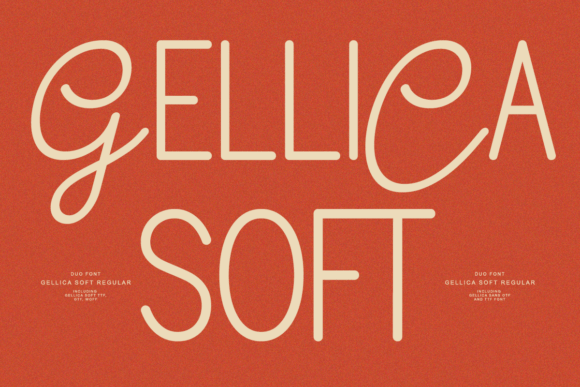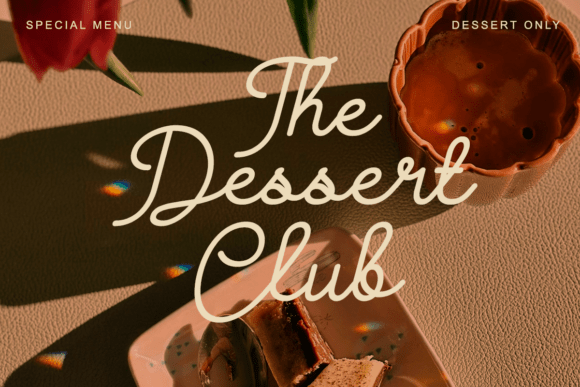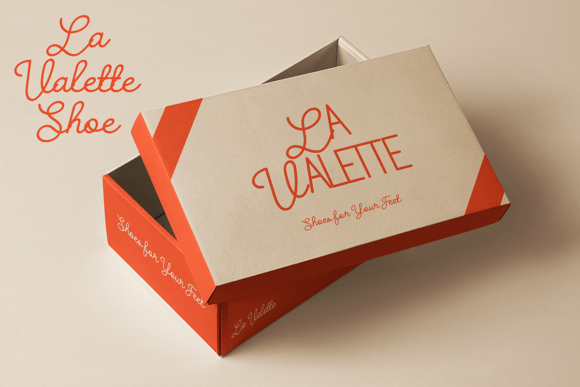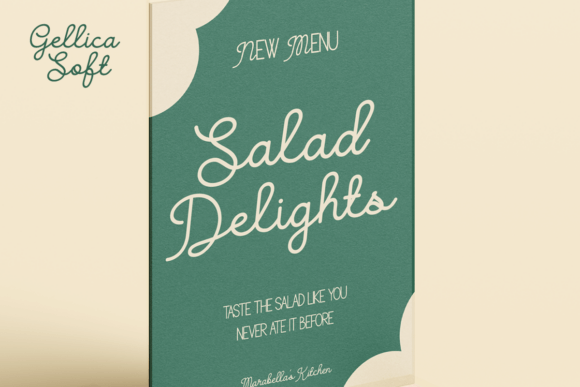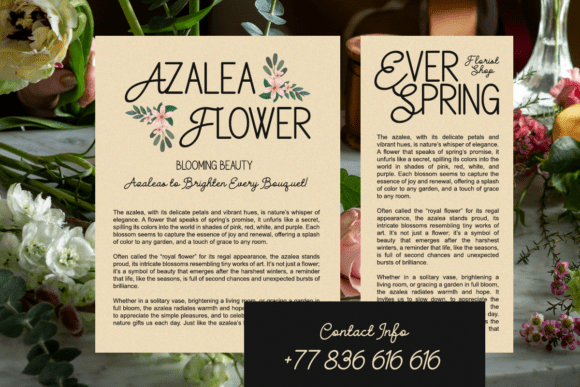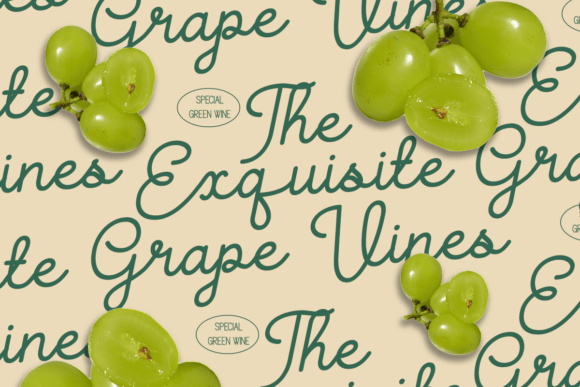
Introducing Gellica Soft Font: A Beautiful Handwritten Font Duo
Are you a designer or crafter looking for a unique and versatile font to elevate your creative projects? Look no further than Gellica Soft Font, a stunning handwritten font duo that’s perfect for a wide range of applications. In this article, we’ll dive into the features and benefits of Gellica Soft, and explore how it can help take your designs to the next level.
The Concept Behind Gellica Soft
Gellica Soft is a carefully crafted font duo that combines two distinct styles to create a unique and captivating visual identity. The italic version of Gellica Soft is a monoline handwritten font, characterized by its smooth, flowing lines and elegant curves. On the other hand, the regular version is a sans serif monoline model combined with a script character, giving it a modern and sophisticated feel.
The goal behind Gellica Soft was to take inspiration from the simple yet effective designs of the past and bring them into the modern era. The result is a font duo that’s both nostalgic and fresh, making it perfect for a wide range of creative projects.
Key Features of Gellica Soft Font
So, what makes Gellica Soft Font so special? Here are just a few of its key features:
- Handwritten font duo: Gellica Soft consists of two complementary fonts that can be used together or separately, depending on your design needs.
- Monoline handwritten font: The italic version of Gellica Soft features smooth, flowing lines that give it a beautiful, handwritten feel.
- Sans serif monoline model combined with script character: The regular version of Gellica Soft has a modern, sophisticated look that’s perfect for a wide range of applications.
- Simple yet effective design: Gellica Soft takes inspiration from the past, with a focus on clean lines, elegant curves, and a timeless aesthetic.
Use Cases for Gellica Soft Font
Gellica Soft Font is incredibly versatile, making it perfect for a wide range of creative projects. Here are just a few ideas to get you started:
- Product logo: Create a beautiful, eye-catching logo for your product or brand with Gellica Soft.
- Wedding card logo: Add a touch of elegance and sophistication to your wedding stationery with Gellica Soft.
- Clothing brand logo: Create a stylish, modern logo for your clothing brand that stands out from the crowd.
- Vintage design: Use Gellica Soft to create stunning vintage-inspired designs that evoke a sense of nostalgia and timelessness.
- And much more!: Gellica Soft is perfect for any creative project that requires a unique, handwritten font with a touch of elegance and sophistication.
Why Choose Gellica Soft Font?
So, why should you choose Gellica Soft Font for your next creative project? Here are just a few reasons:
- Unique and versatile: Gellica Soft is a one-of-a-kind font duo that’s perfect for a wide range of applications.
- Elegant and sophisticated: With its smooth lines, elegant curves, and timeless aesthetic, Gellica Soft is perfect for designs that require a touch of sophistication.
- Easy to use: Gellica Soft is incredibly easy to use, making it perfect for designers and crafters of all skill levels.
| Font Name | Gellica Soft Font |
| Author | Font Liner |